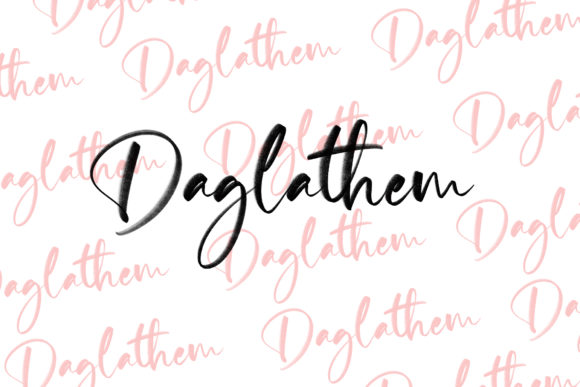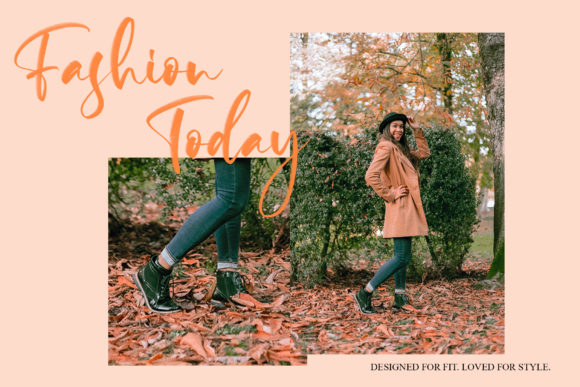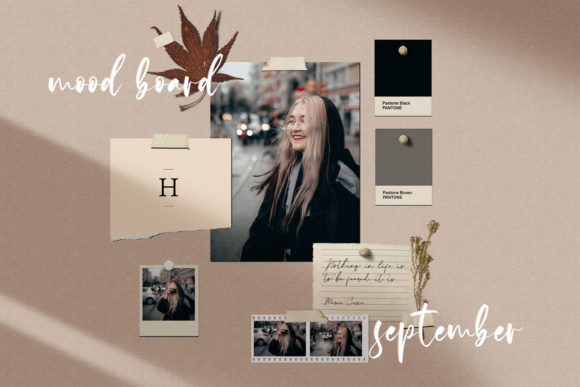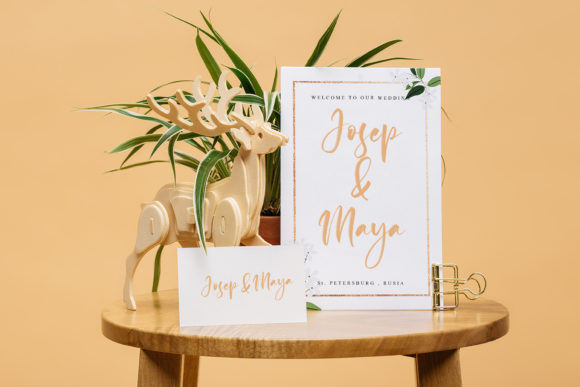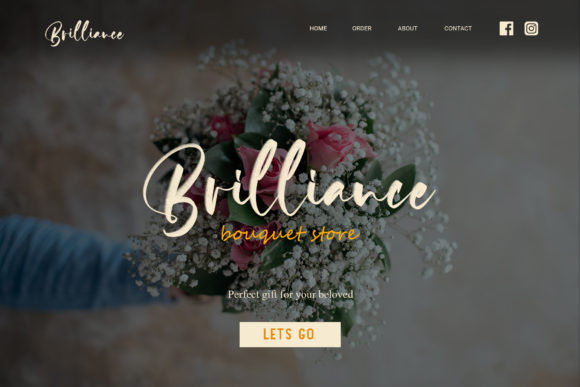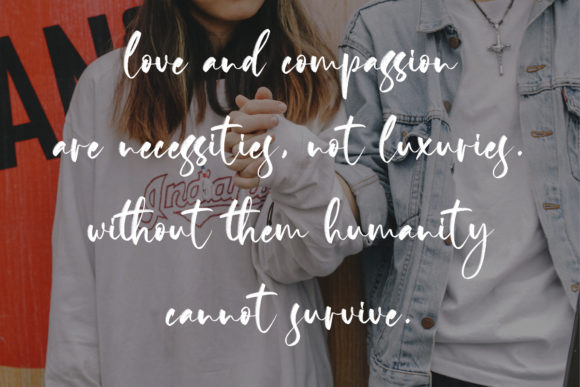
The Designer’s Delight: Getting to Know Daglathem Font
I’ll never forget the time I was working on a project for a client who wanted a font that was both elegant and whimsical. I had spent hours scouring the internet for the perfect match, but nothing seemed quite right. That was until I stumbled upon Daglathem Font. Its unique blend of delicate brushstrokes and timeless style instantly caught my eye, and I knew I had found the one. In this article, I’ll share my love for Daglathem Font, its features, and how to make the most of it in your designs.
An Honest Review of Daglathem Font
What I Love About Daglathem Font
- ✨ Unique and distinctive style: Daglathem Font has a one-of-a-kind look that will make your designs stand out from the crowd.
- ✅ Delicate and elegant: The font’s brushstrokes are soft and refined, making it perfect for projects that require a touch of sophistication.
- 💫 Timeless appeal: Despite being a modern font, Daglathem has a classic feel that won’t go out of style anytime soon.
While Daglathem Font is an amazing addition to any design project, there are a few things to keep in mind:
- ⚠️ Limited use in very small sizes: Due to its delicate nature, Daglathem Font may not be the best choice for very small text sizes, as some details may get lost.
- 🤔 Occasional inconsistencies: As with any handwritten font, there may be slight inconsistencies in letter spacing or size, which can add to its charm but also require some manual adjustments.
- Experiment with OpenType features, such as Stylistic Alternates, to add more variety to your text.
The Story Behind Daglathem Font
While the true story behind Daglathem Font remains a mystery, it’s easy to imagine that it was created by a designer who wanted to capture the essence of delicate brushstrokes and timeless elegance. Perhaps the designer was inspired by traditional calligraphy or the works of famous artists. Whatever the inspiration, Daglathem Font has become a beloved addition to many designers’ toolkits.
| Font Name | Daglathem Font |
| Author | Alit Design |
Q: What type of projects is Daglathem Font best suited for?
A: Daglathem Font is perfect for projects that require a touch of elegance and sophistication, such as wedding invitations, branding materials, and social media graphics.
Q: Is Daglathem Font available in different weights or styles?
A: Daglathem Font may come in different weights or styles, such as italic or bold, but this will depend on the specific version of the font you’re using.